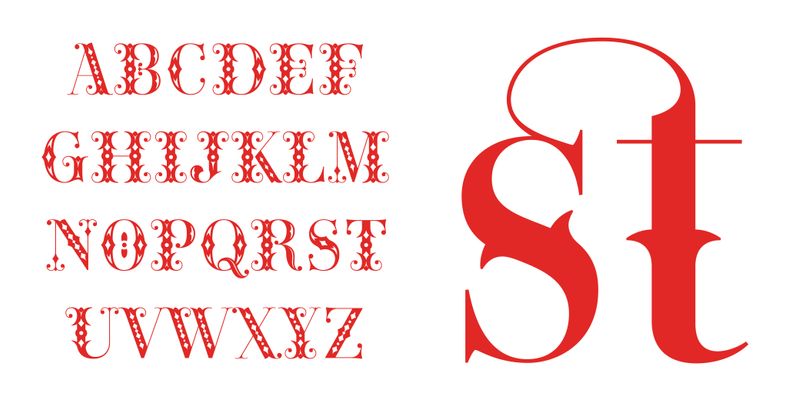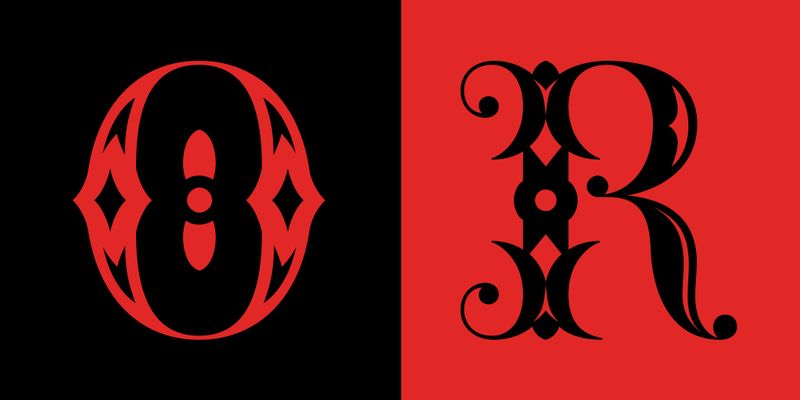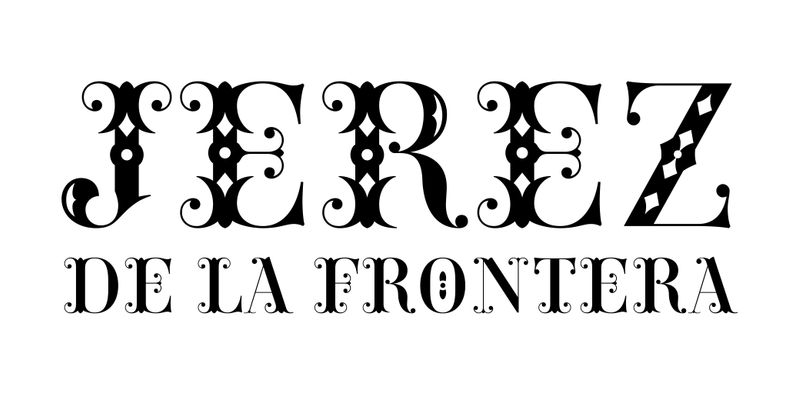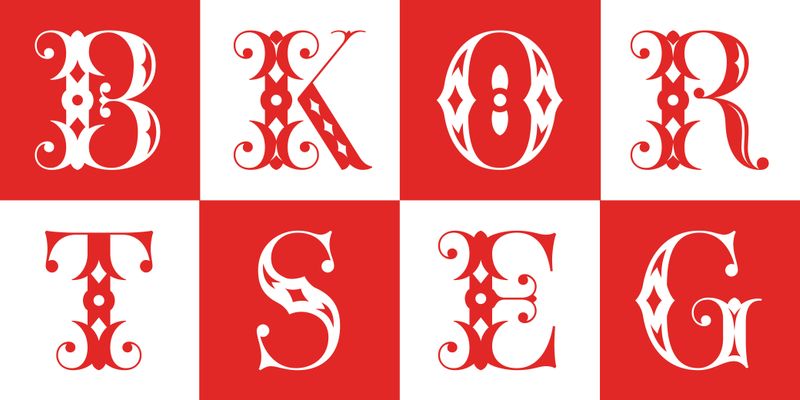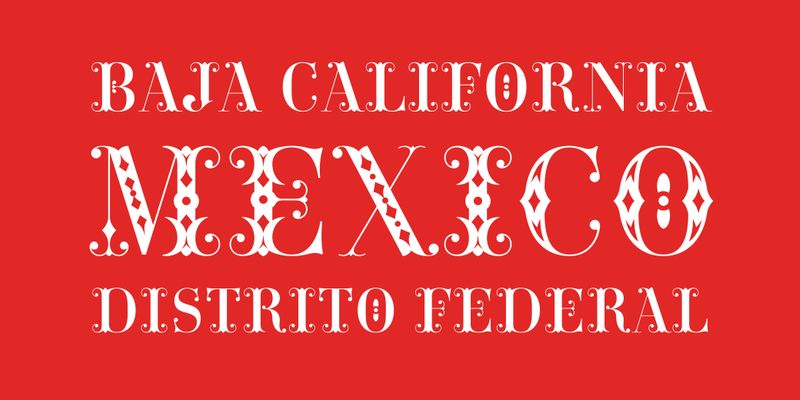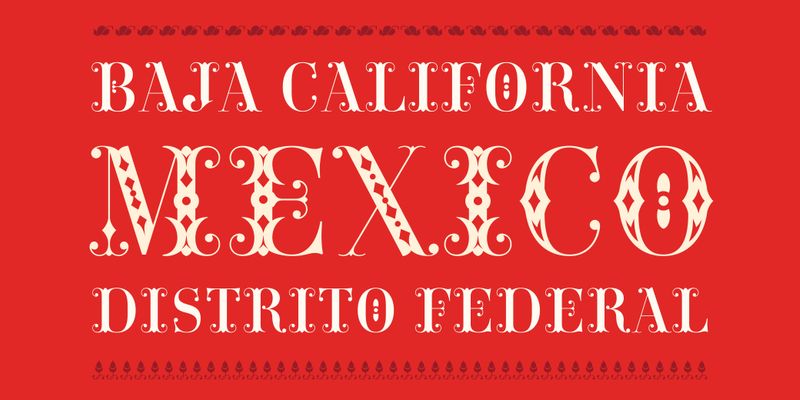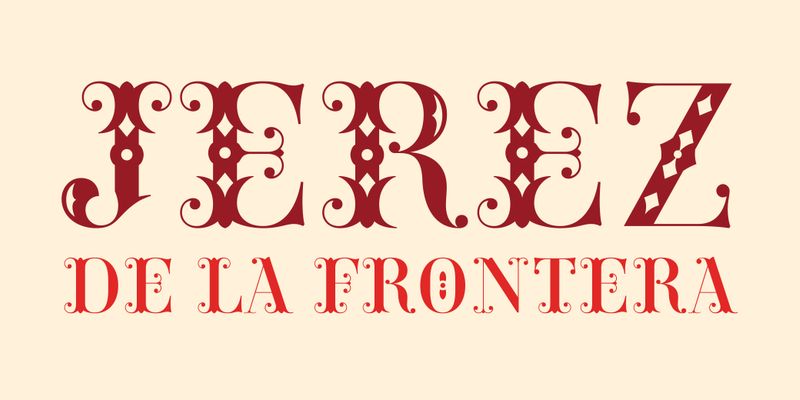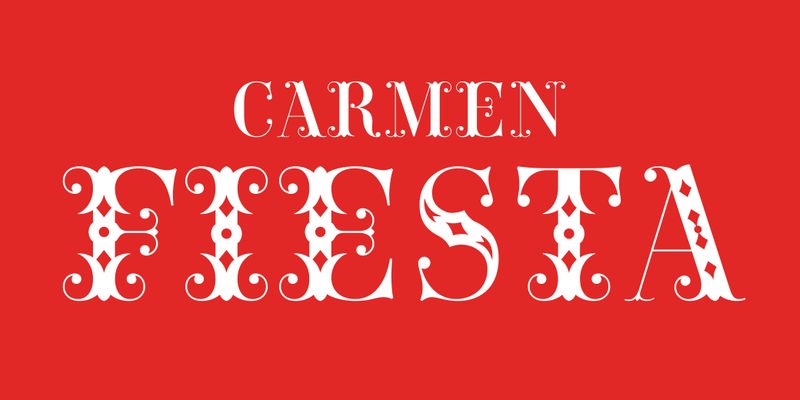
Carmen Fiesta, or simply ‘Fiesta’ (for friends), is a flourished style inspired by the ornamental typography used in vintage bullfighting and southern festival posters. It features a decorated stylistic set that enhances its ornamental effect. As part of the Carmen family, it serves as the expressive and joyful younger cousin, like a festive costume for special occasions.